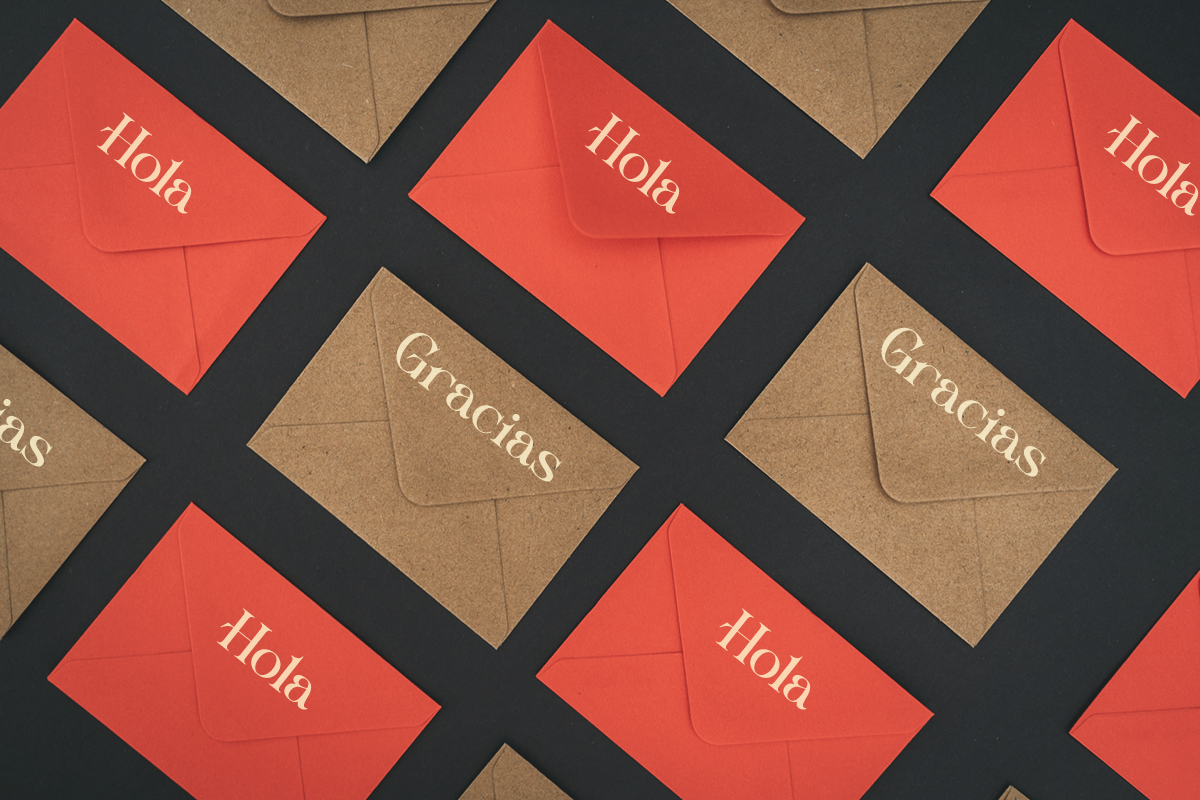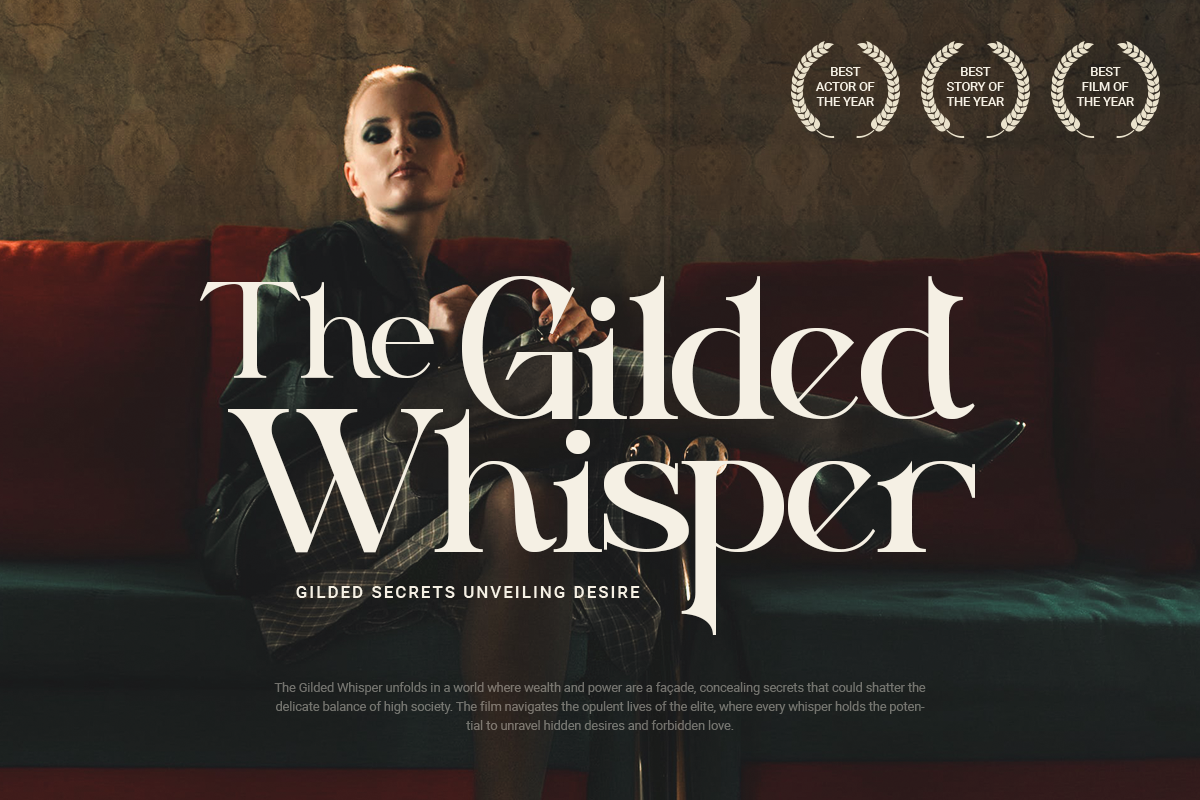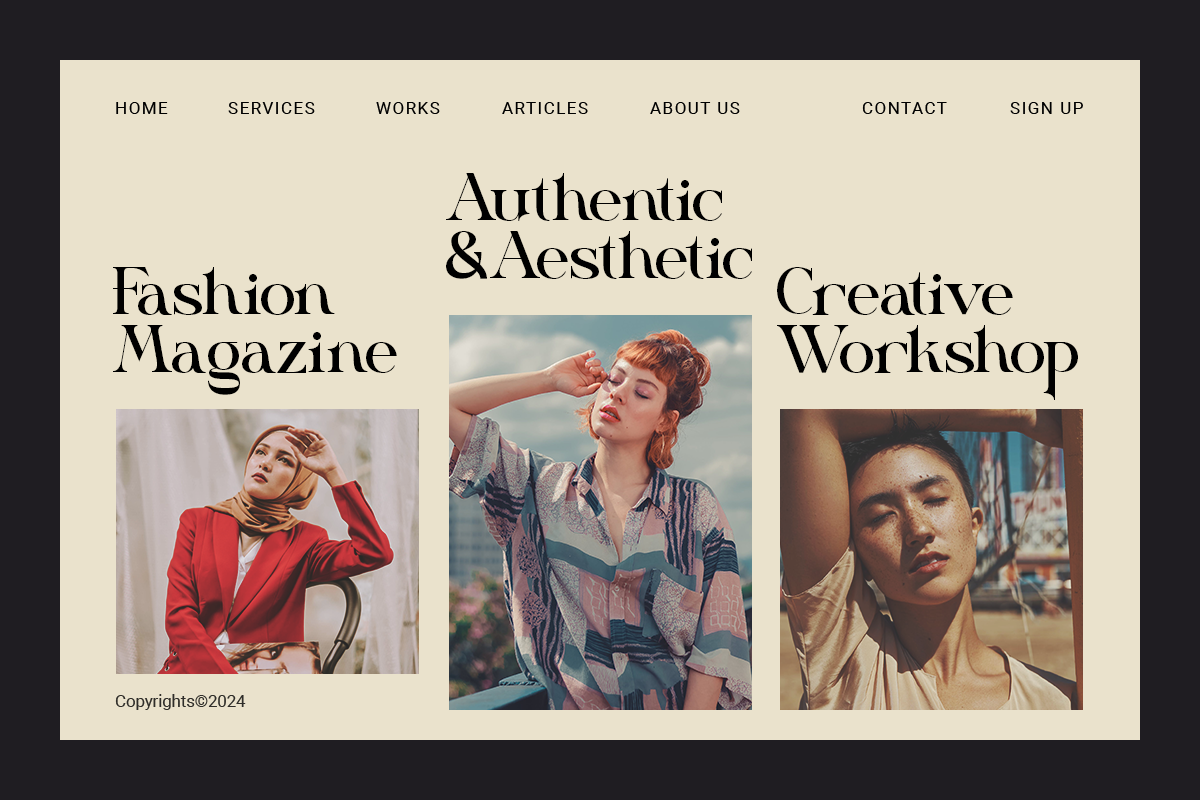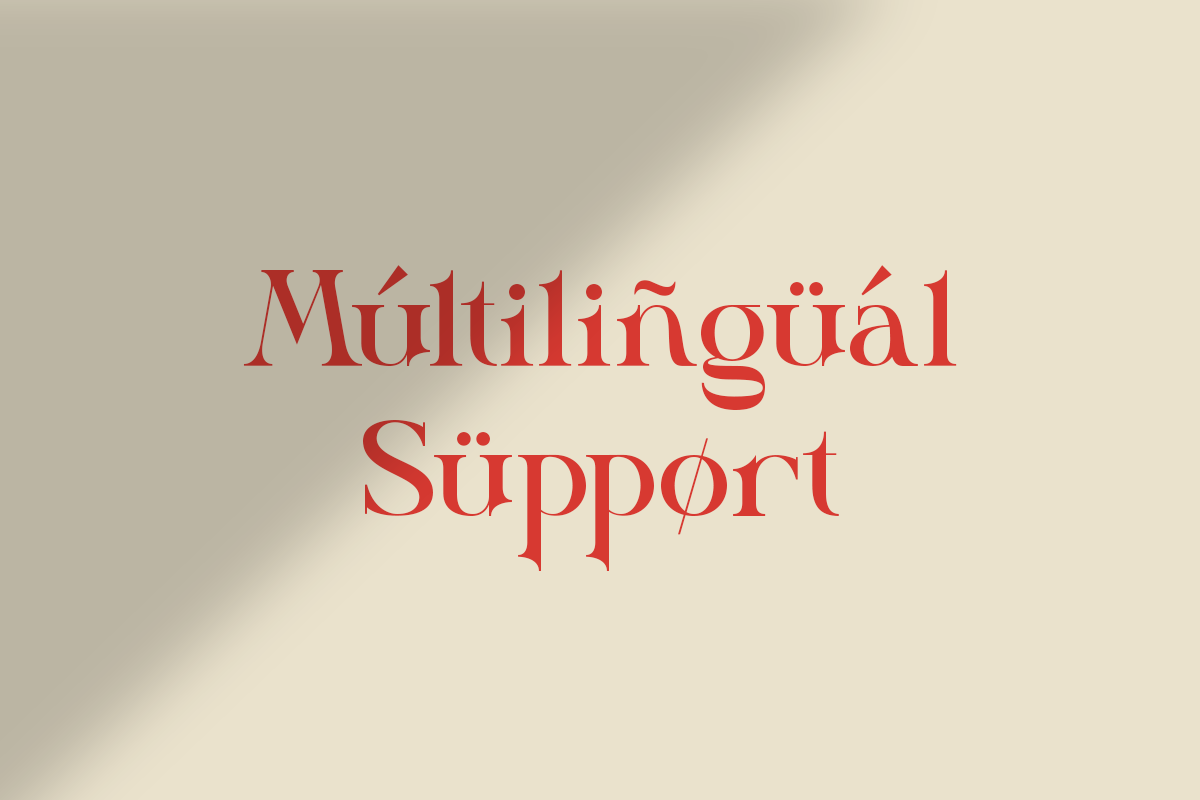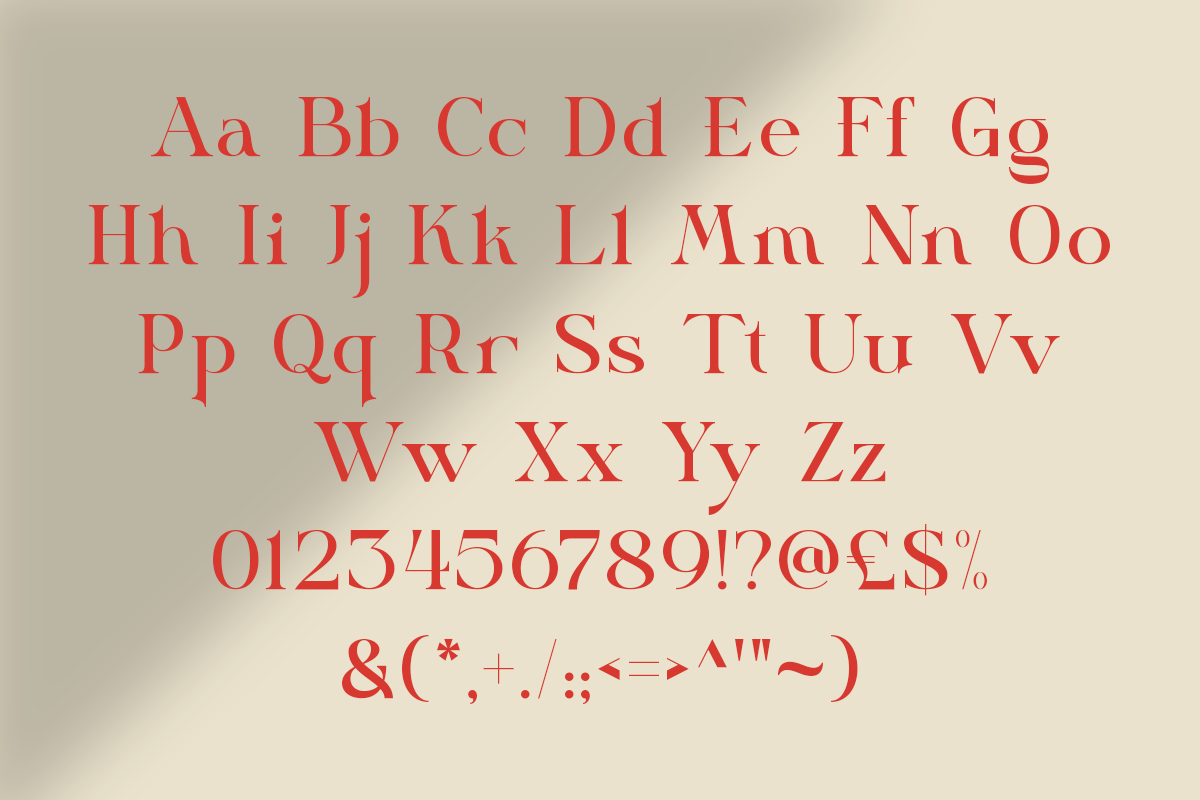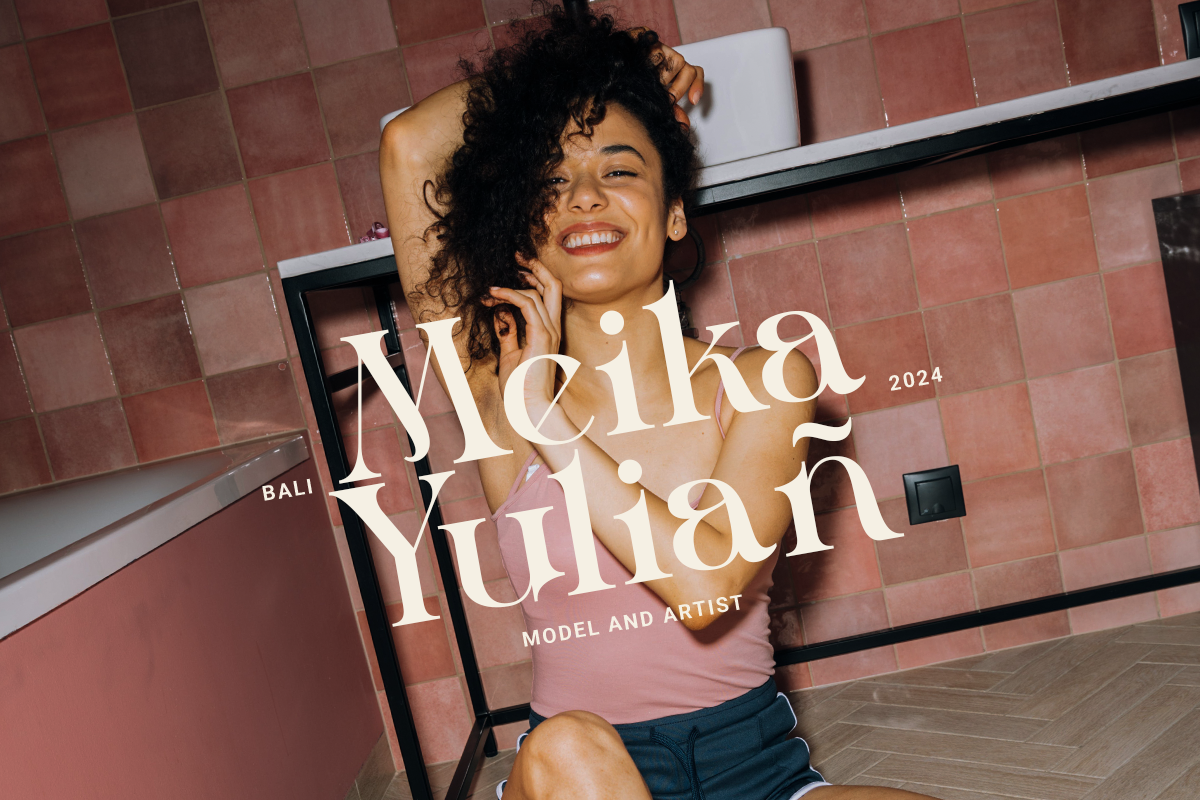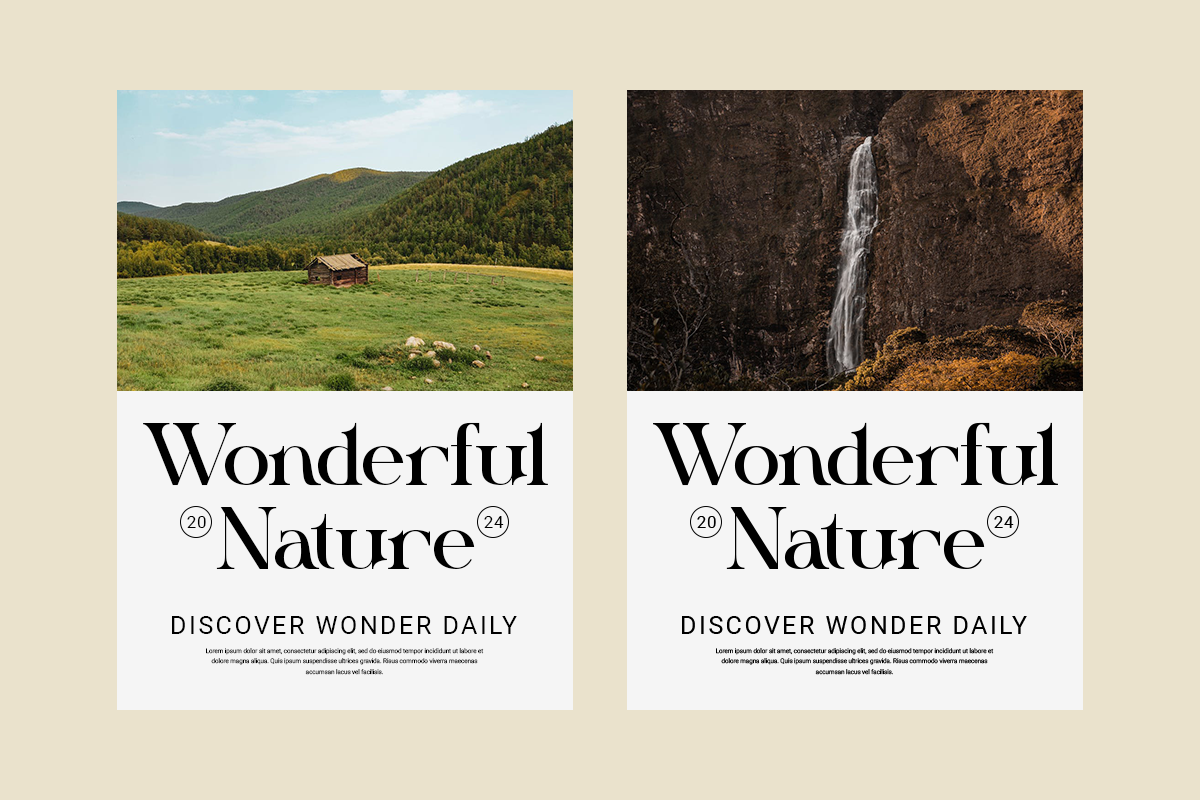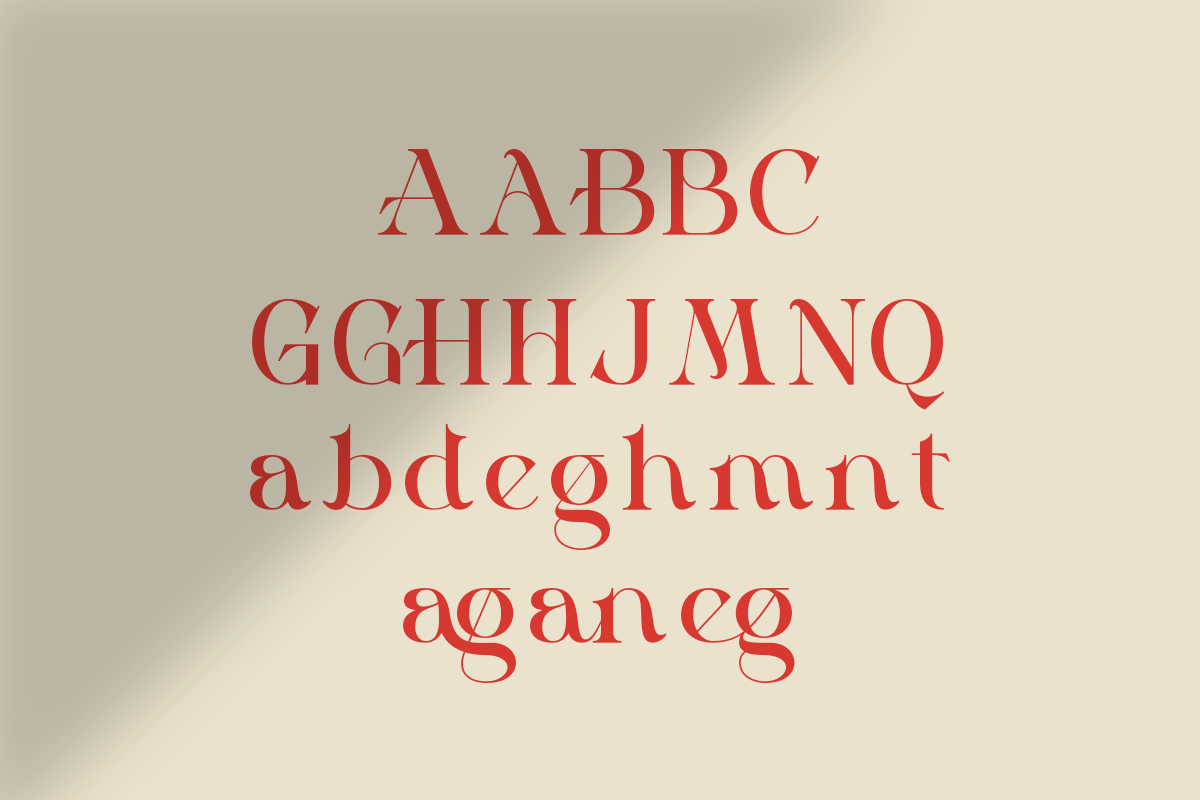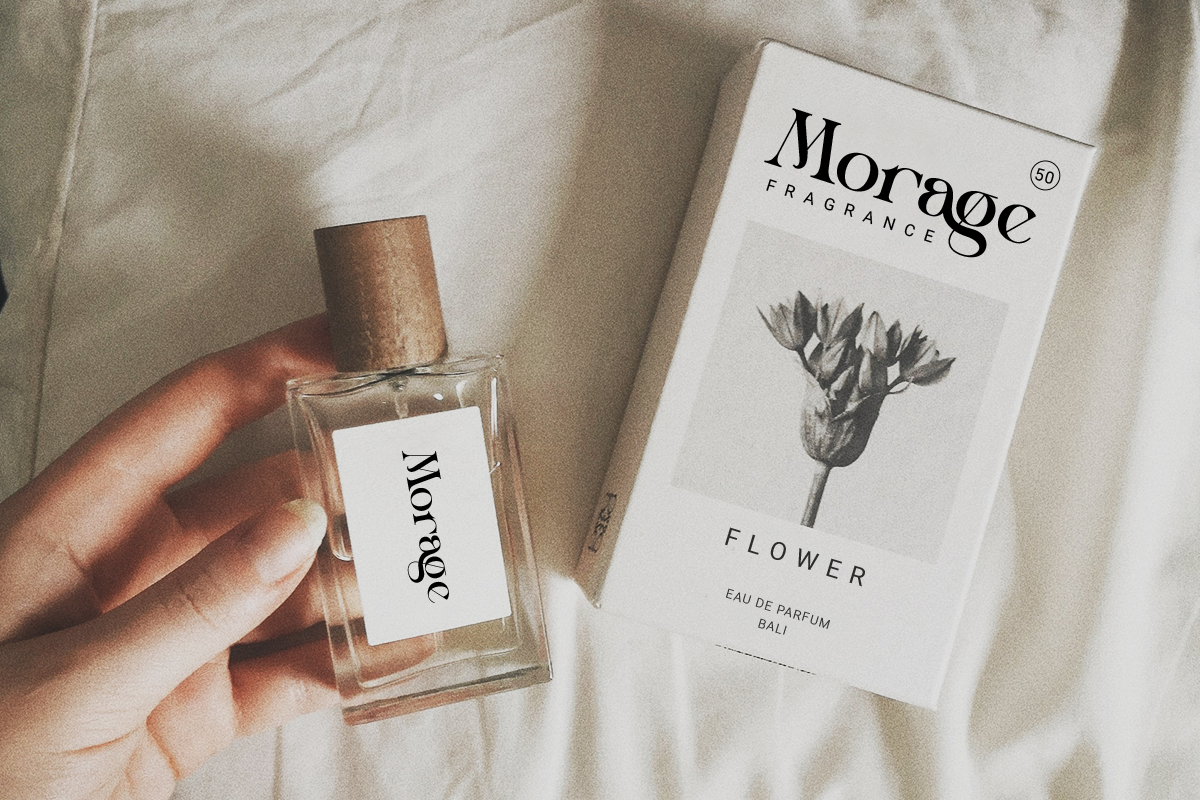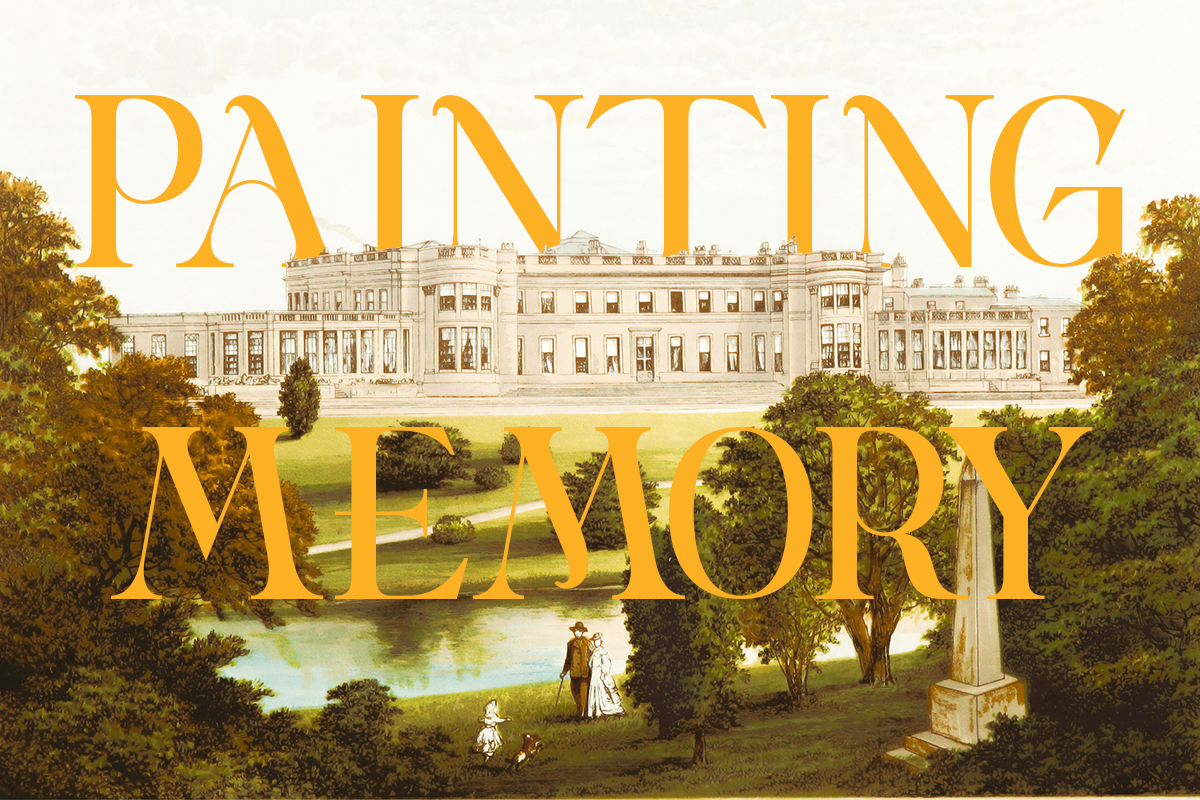
Sage Elegantia - Modern Serif
Sage Elegantia is a Classy serif typeface Unique alternate , multilingual support with perfect kerning. This typeface is perfect for an elegant & luxury logo , classy editorial design, women's magazine, fashion brand , cosmetic brand, fashion promotion , modern advertising design, invitation card, art quote, home decoration , book/cover titles, special events, and much more. This elegant font needs to be in your collection and is perfect for your next luxury design project.